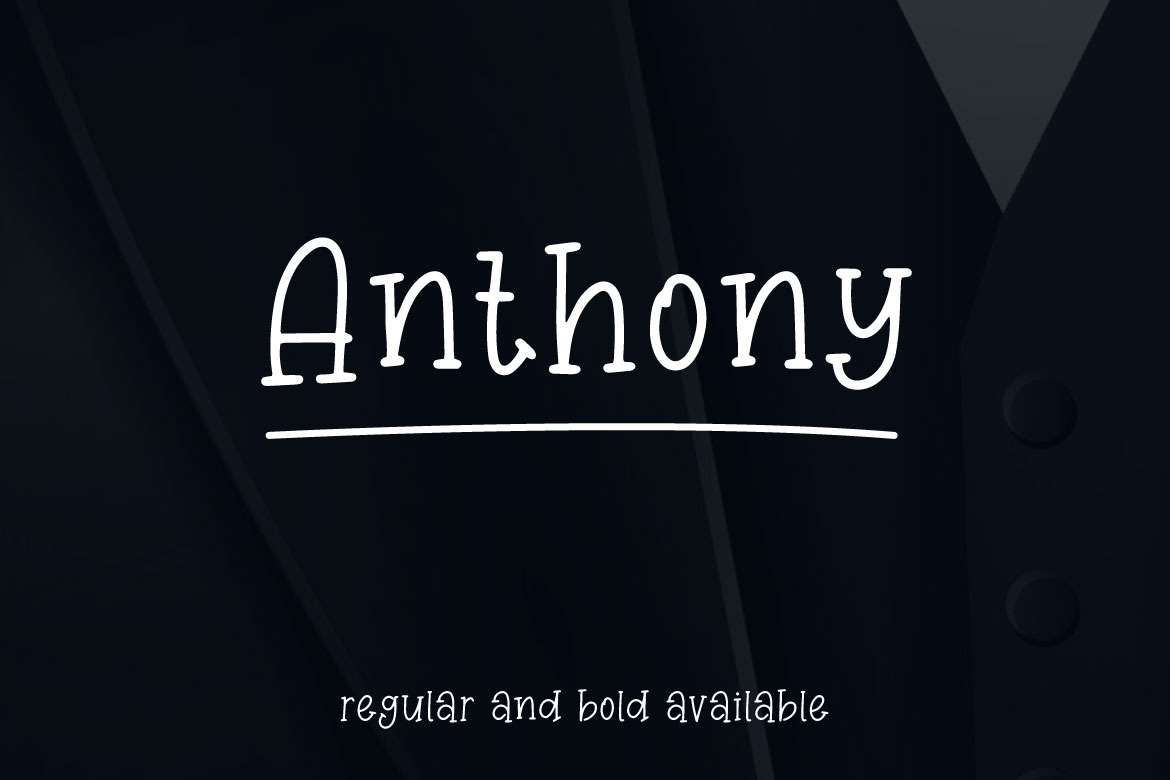
Anthony - Modern Clean Font
Hello! ANTHONY is a clean minimalist font. Anthony can be used in any works such as flyer, book title, advertisement, social media content, logo and many more.